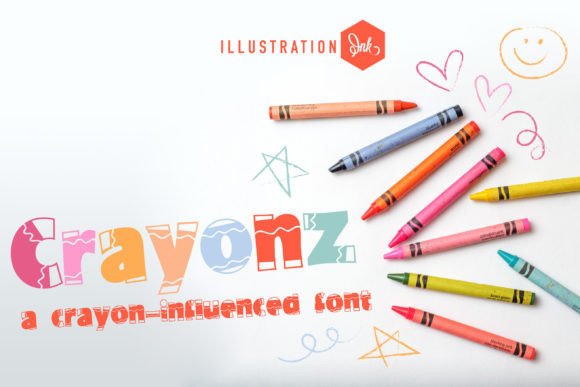
Looking for the perfect font to add a touch of creativity and playfulness to your designs? Look no further than Crayonz Font, the best font for school signs and any children's activity or project. Created by Illustration Ink, this fun and whimsical decorative font features crayon-influenced lettering that exudes authenticity and charm.
With its chunky lettering and playful vibe, Crayonz Font is sure to add a pop of personality to any design project. Whether you're creating a flyer for a school event or designing a poster for a children's playgroup, this font is guaranteed to capture attention and delight viewers.
But Crayonz Font isn't just about looks - it's also incredibly versatile and easy to use. Whether you're a seasoned designer or a novice just starting out, you'll find that this font is a breeze to work with. And with its rich array of characters and symbols, you'll be able to create a truly unique and personalized design that's sure to stand out from the crowd.